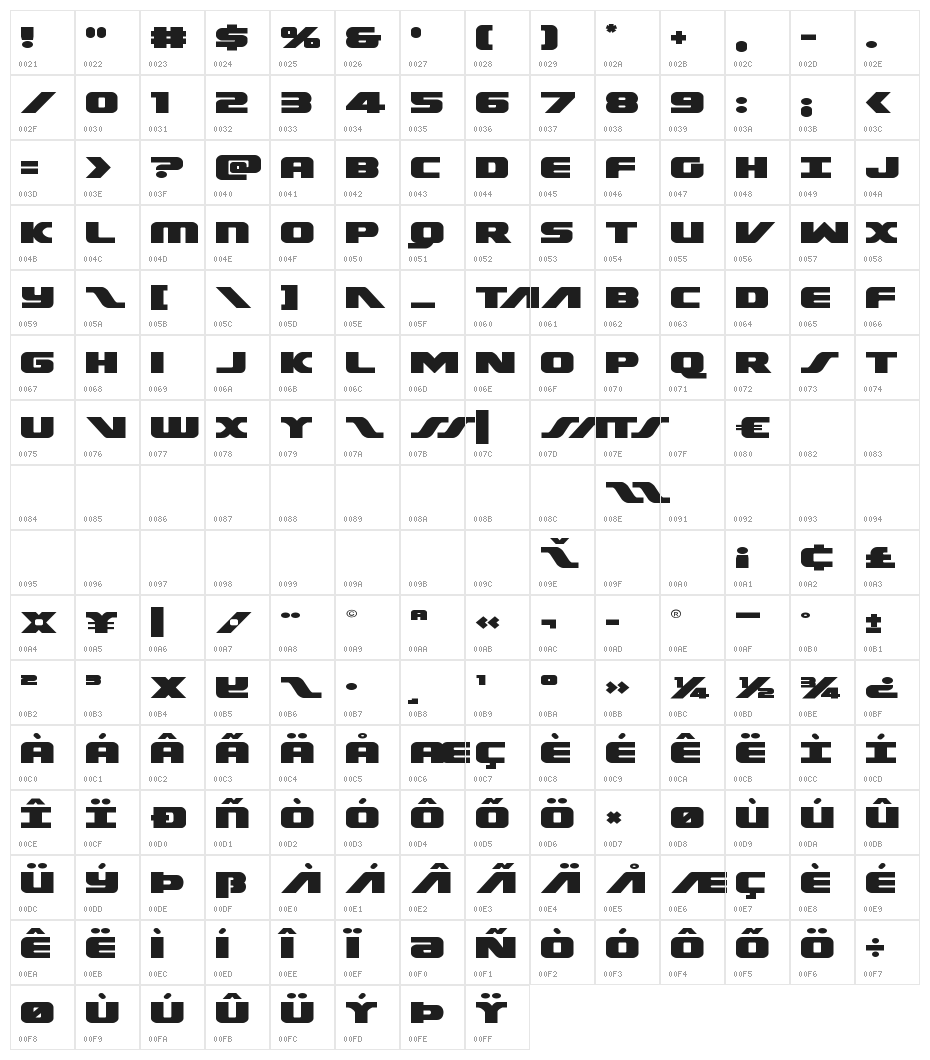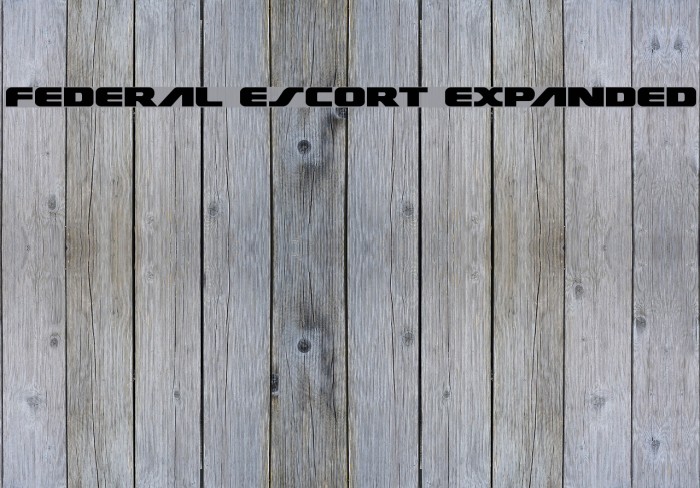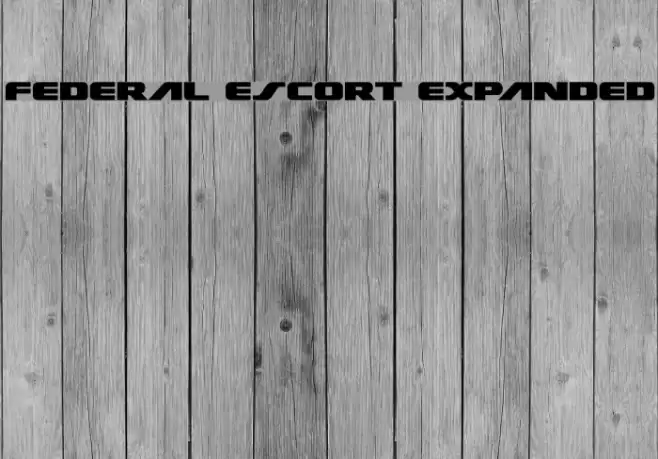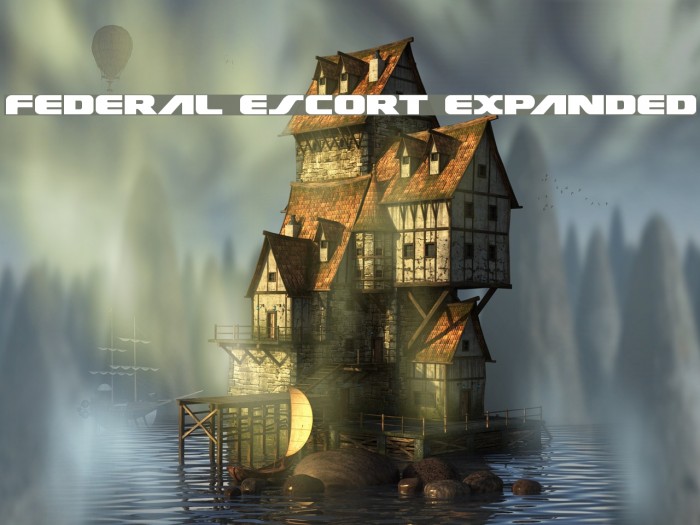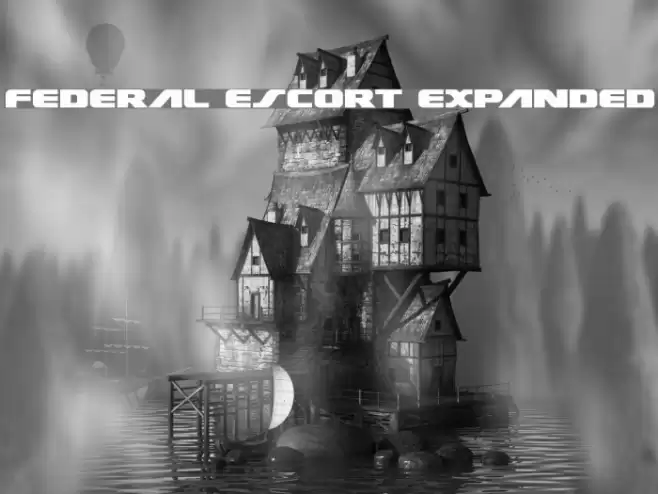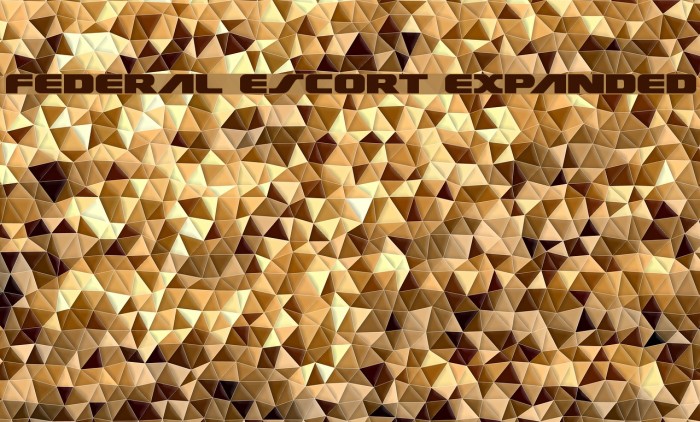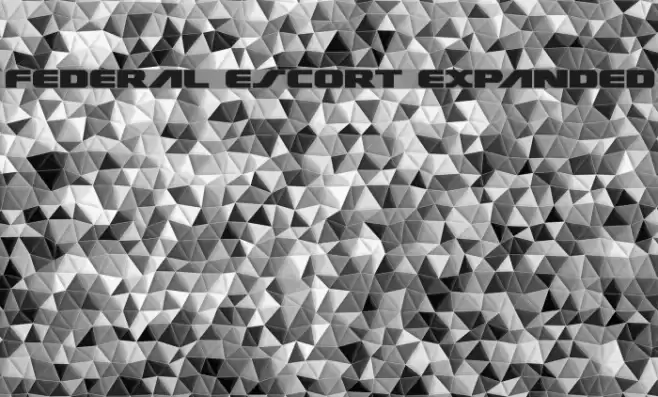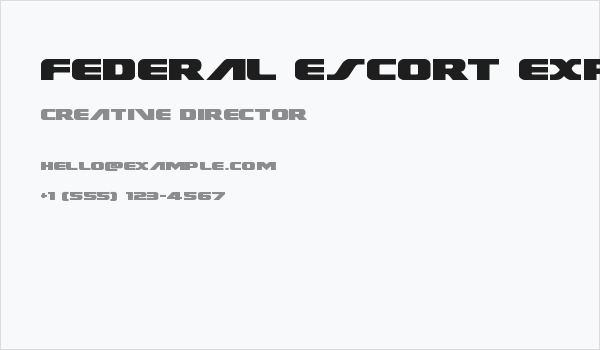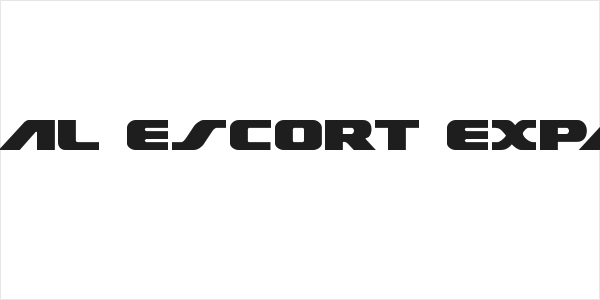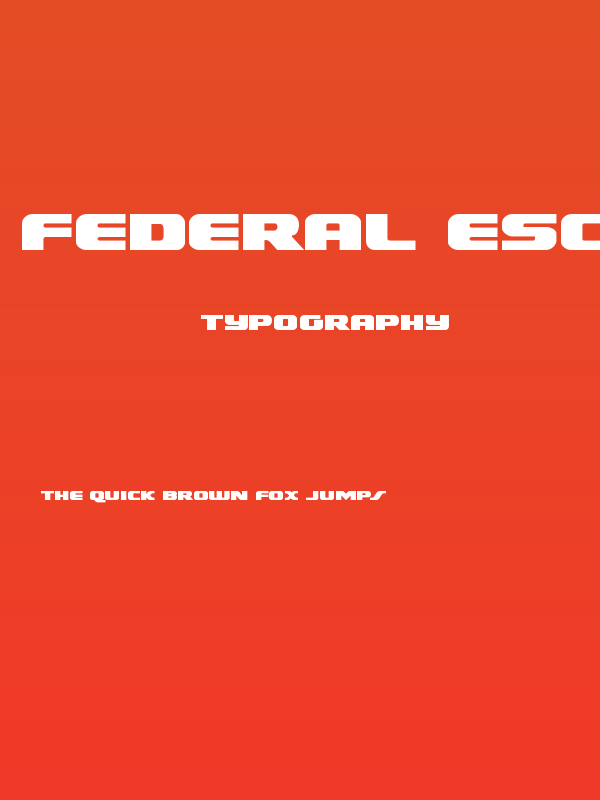
Federal Escort Expanded Font
Federal Escort Expanded Description
This font features a bold, geometric design with a futuristic flair. The characters are wide and expanded, giving a sense of strength and stability. The uppercase letters have a uniform height, while the lowercase letters maintain a consistent style, enhancing readability. The numbers are equally bold, matching the overall aesthetic. Special characters are distinct and maintain the font's bold characteristics. The design is suitable for projects that require a modern, impactful look.
| Proposed Projects | Ideal for branding, posters, headlines, and any design requiring a strong, modern aesthetic. |